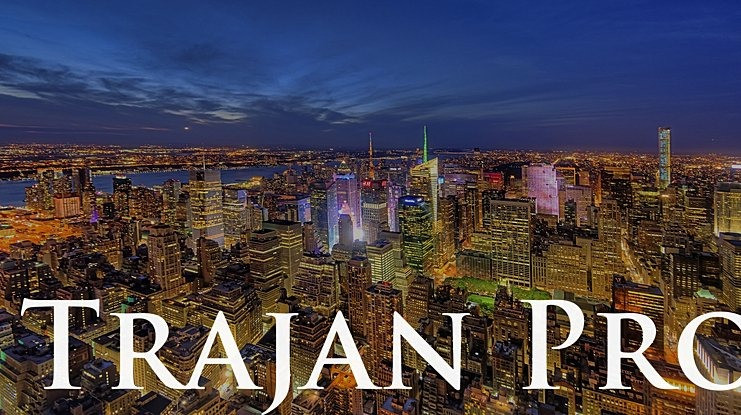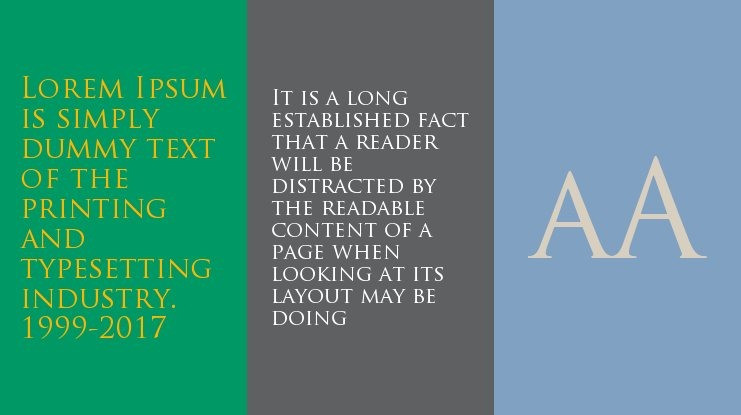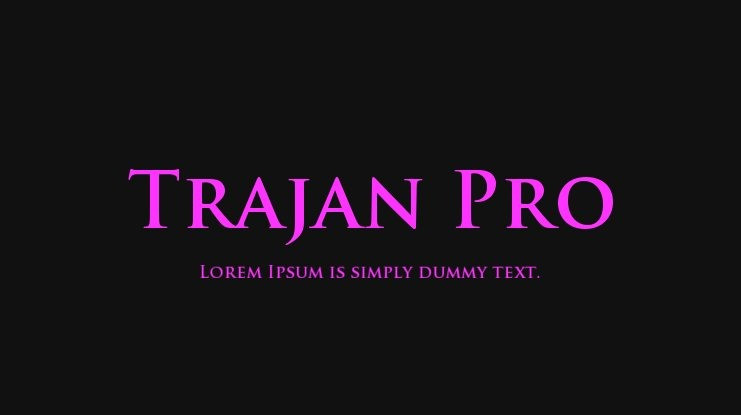
Trajan Pro Font
Trajan Serif Font Family was designed by Carol Twombly. While designing Trajan, Carol Twombly was influenced by the style of carved letters produced by the Romans during the first century AD. Twombly completed the design, adding numerals and punctuation, as well as a bolder version to allow for text emphasis. Most importantly, her interpretation of the ancient style resulted in a font family whose clarity and beauty come across in modern printed materials.